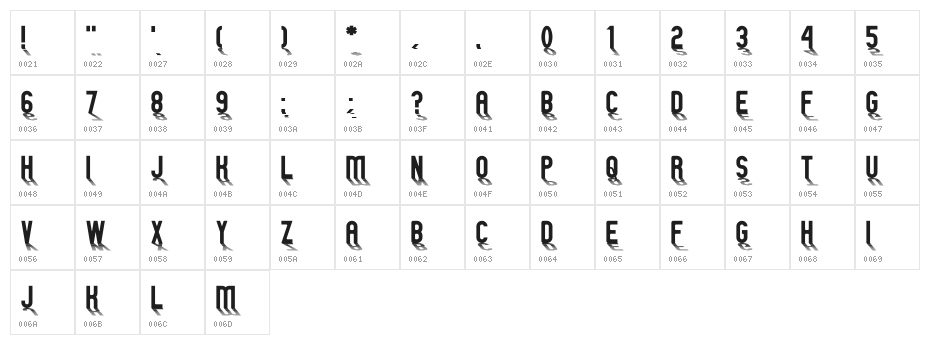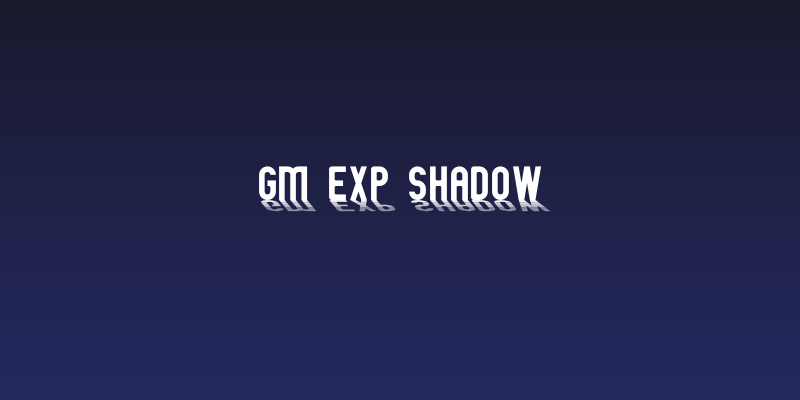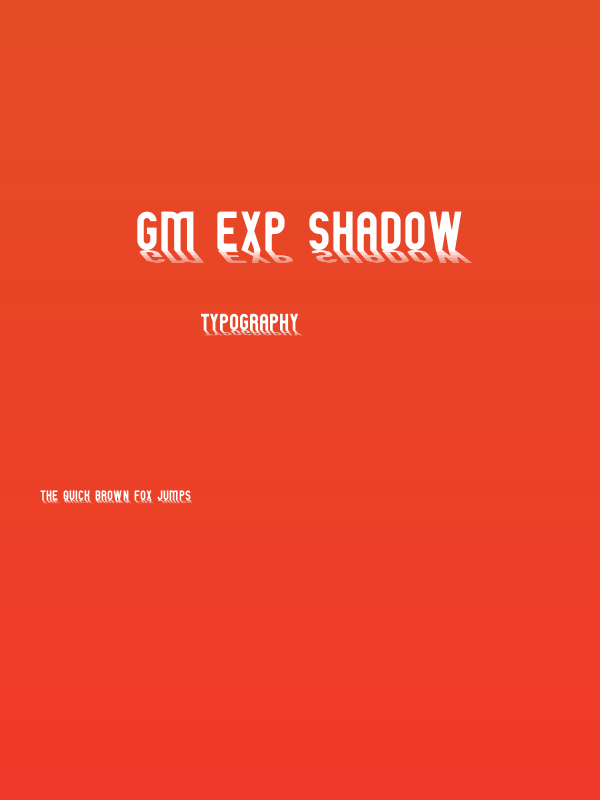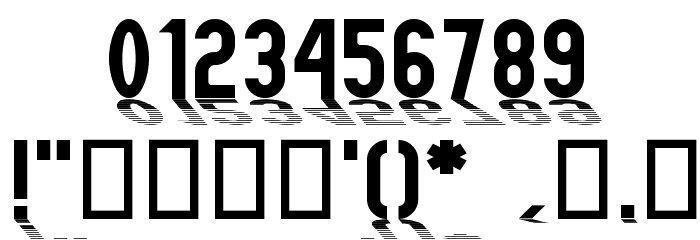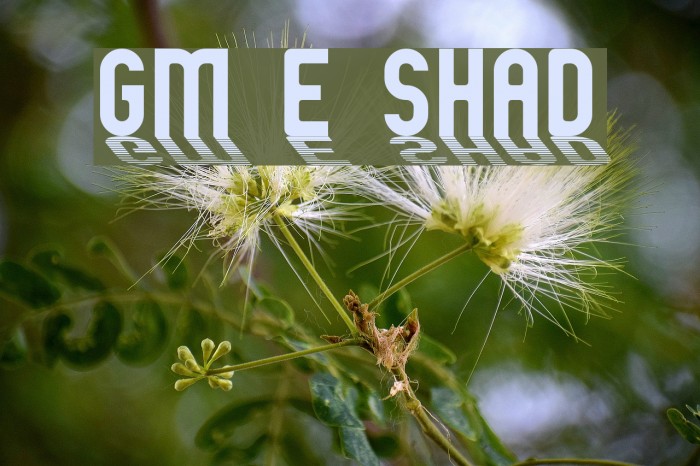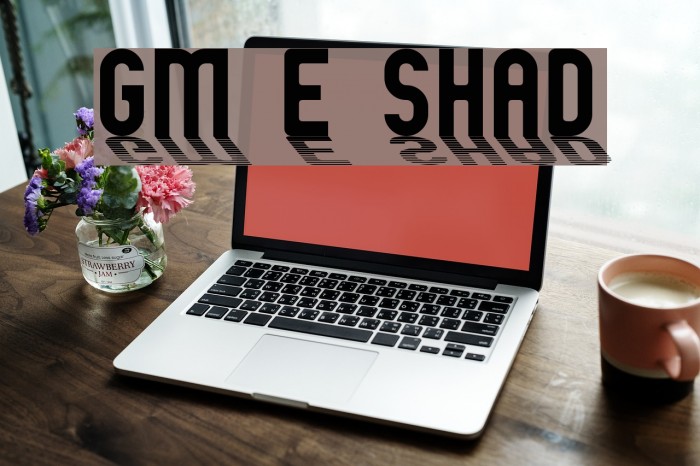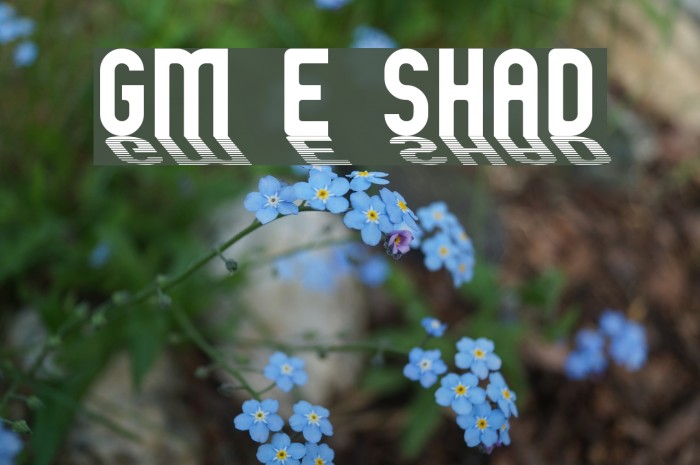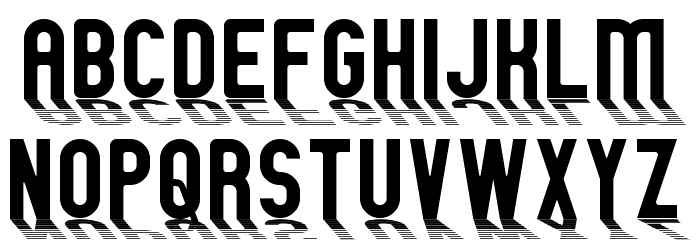
GM Exp Shadow Font
GM Exp Shadow Description
This font features a bold, geometric design with a distinct shadow effect that gives it a three-dimensional appearance. The uppercase letters are tall and narrow, with sharp angles and clean lines, creating a modern and impactful look. The shadow extends to the right and downward, adding depth and a sense of movement. The numbers and special characters maintain the same bold style, ensuring consistency across all elements. This font is ideal for creating eye-catching headlines and titles, where a strong visual impact is desired.
| Proposed Projects | Ideal for posters, logos, and headlines where a strong, modern impact is needed. |